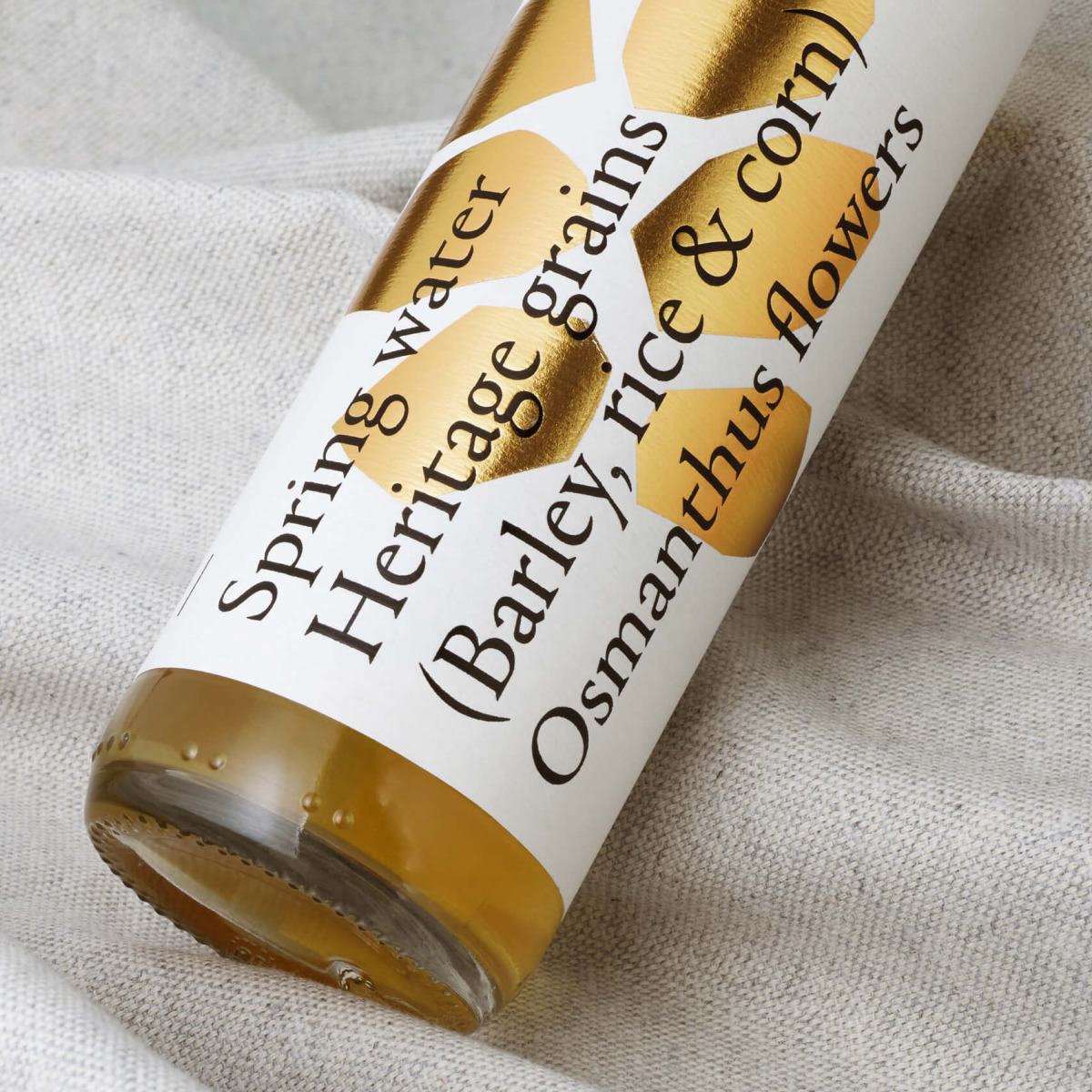
Outsider Drinks is a brand of non-alcoholic beverages produced from fermented botanicals and diffusion-extracted juices. Studio Thomas designed the packaging using quite abstract botanical illustrations and three styles of Portrait by Commercial Type.
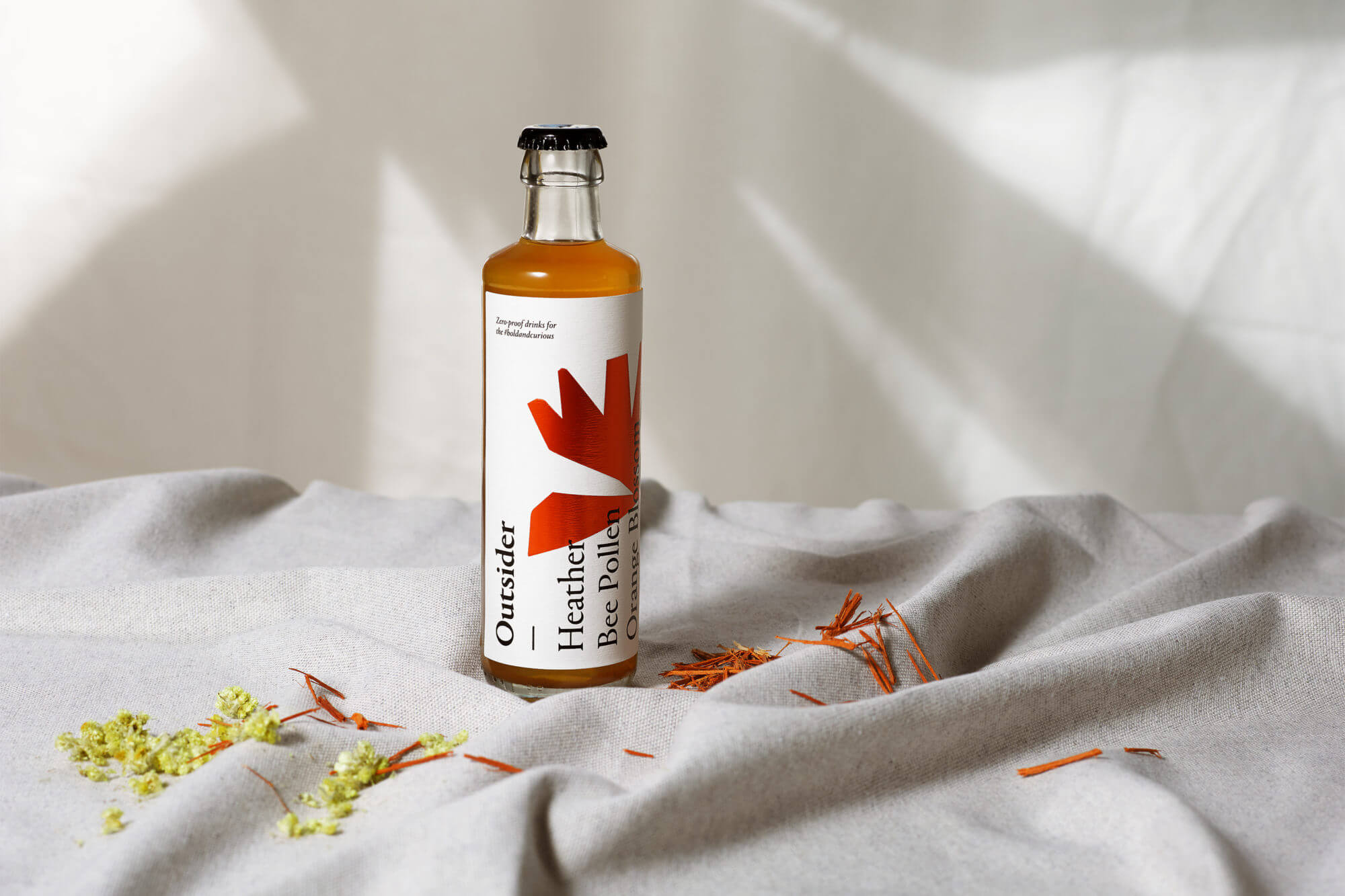
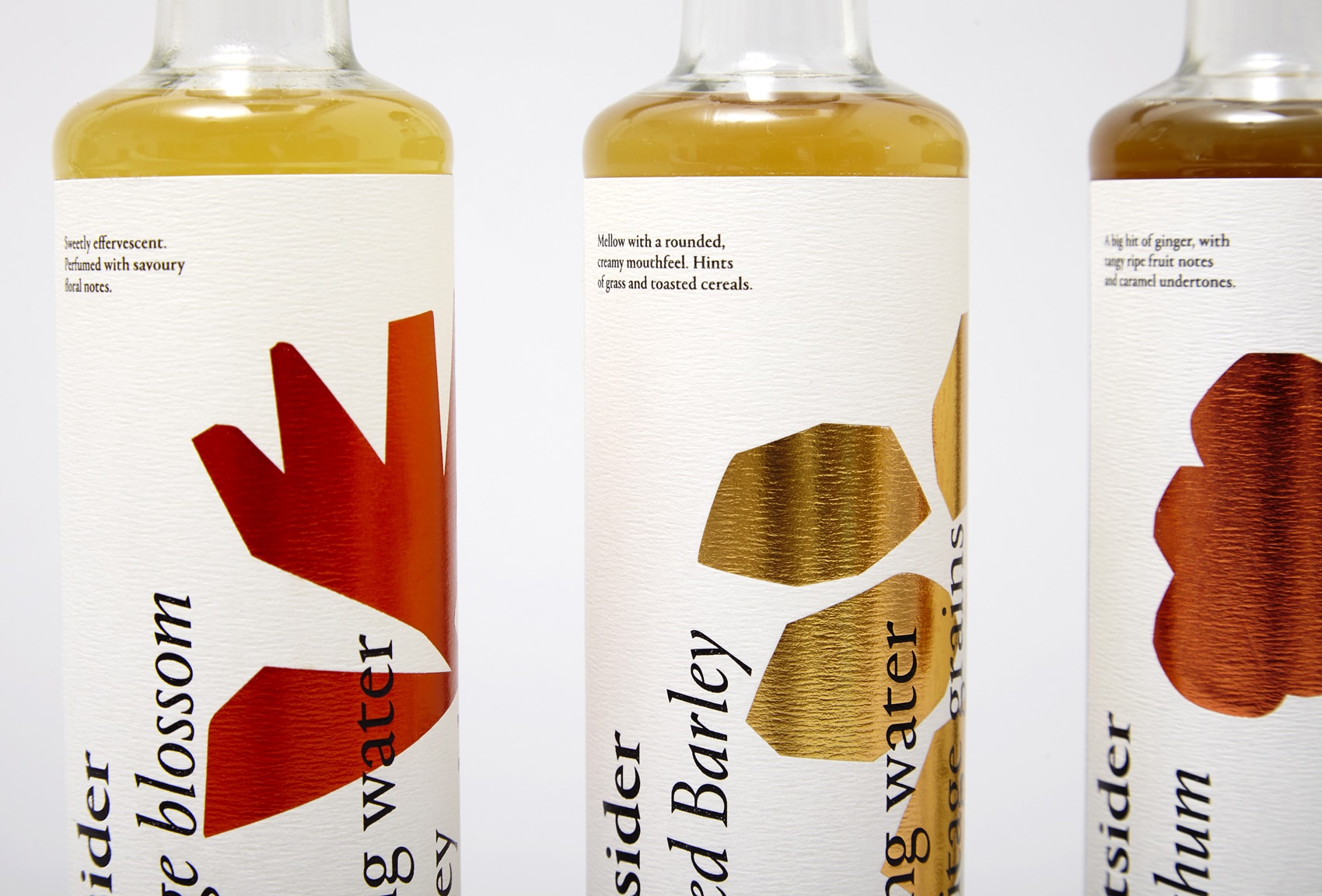
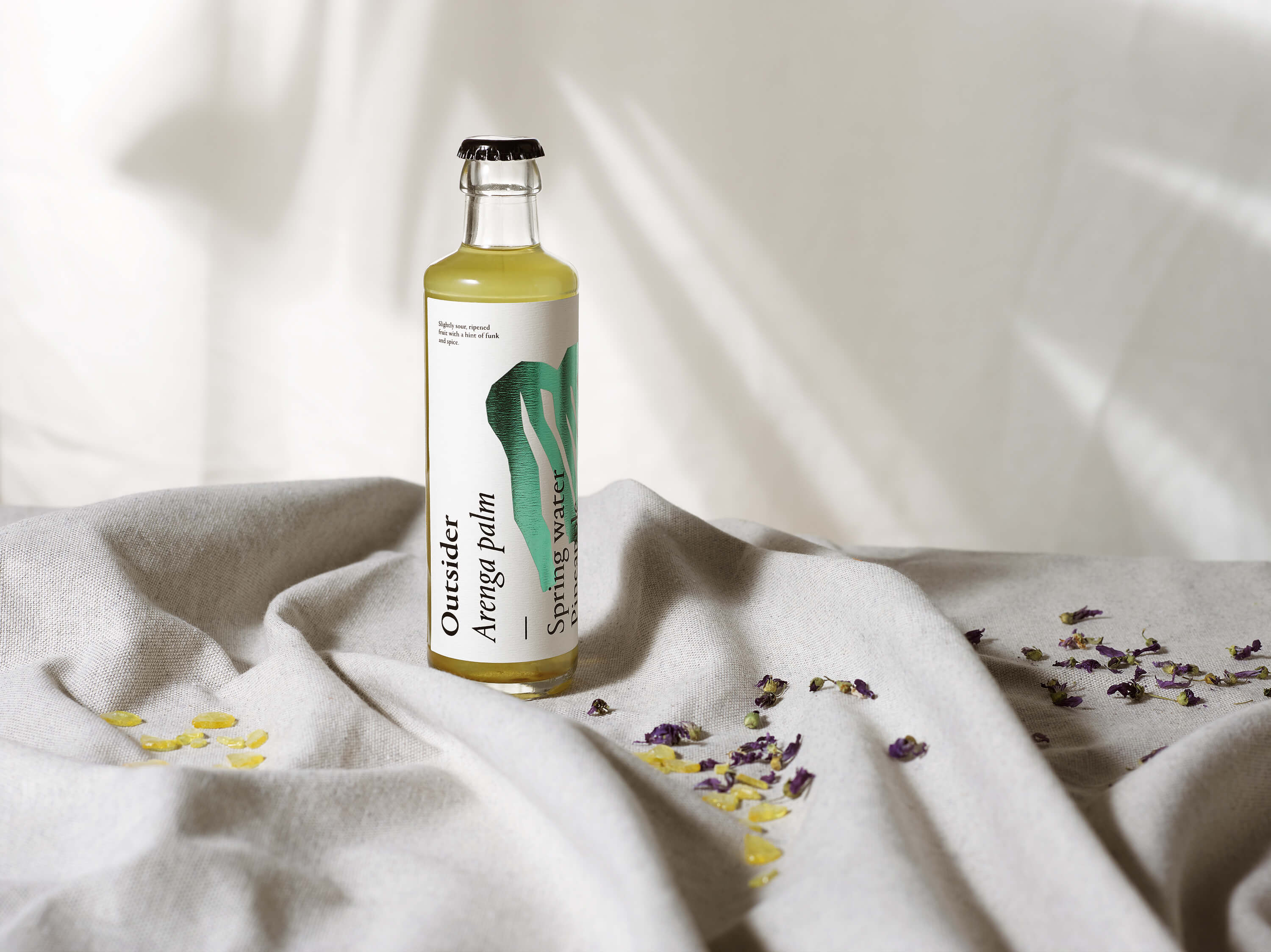
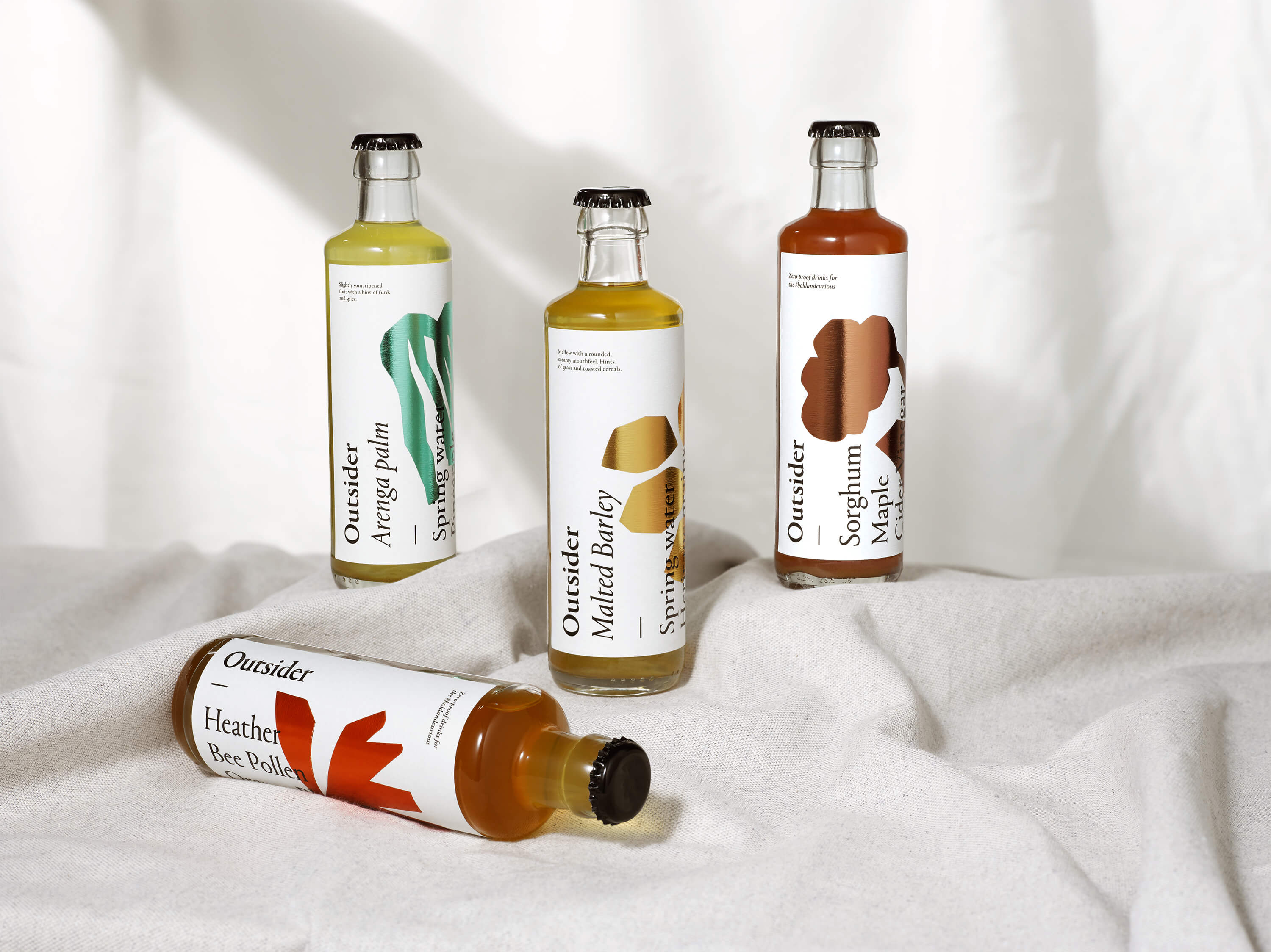
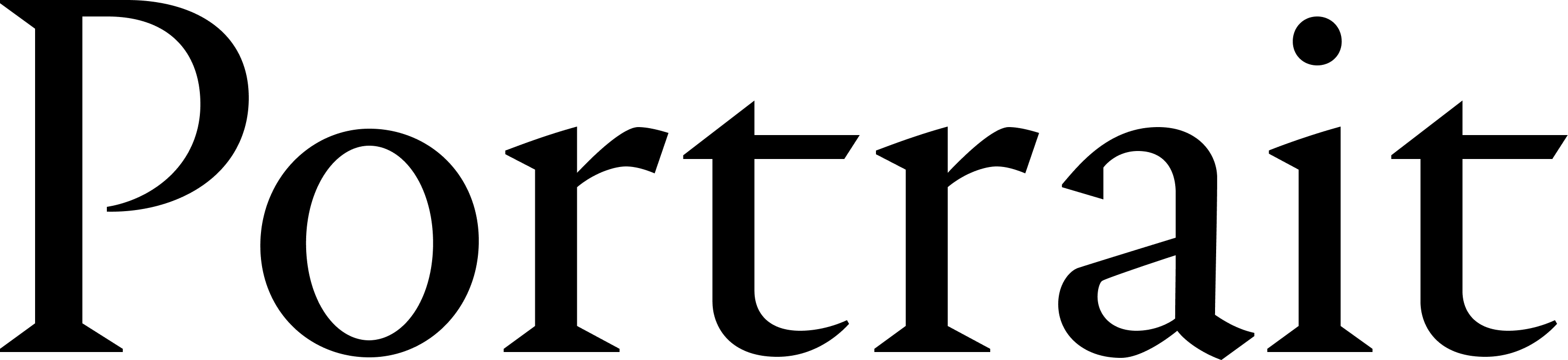
Portrait is a French Renaissance serif typeface as seen by a contemporary minimalist designer daring enough to introduce sharp triangular serifs to the proportions of the time. Portrait’s minimalist solutions are taken to their logical extreme in the Inline styles, where overlapping strokes within the characters make them appear dimensional.